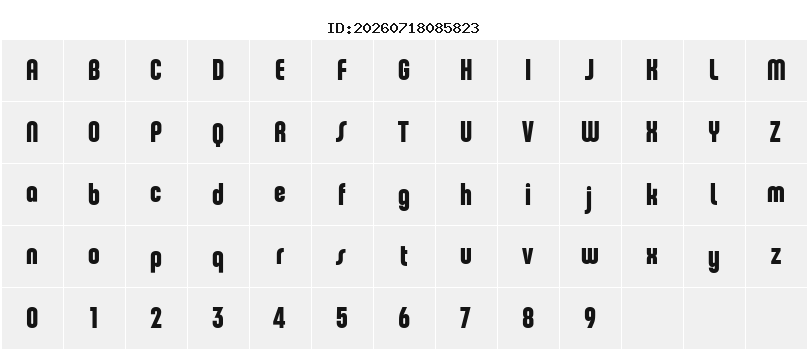
• Font Name: ChaletComprime-HongKongSeventy
• Designer: Paul van der Laan/House Industries
• Description: Part of the Chalet Comprime Collection
About ChaletComprime-HongKongSeventy.ttf
ChaletComprime-HongKongSeventy.ttf is a modern, elegant sans-serif font designed for ultimate readability and visual harmony. Perfect for branding, headlines, web design, and print materials.